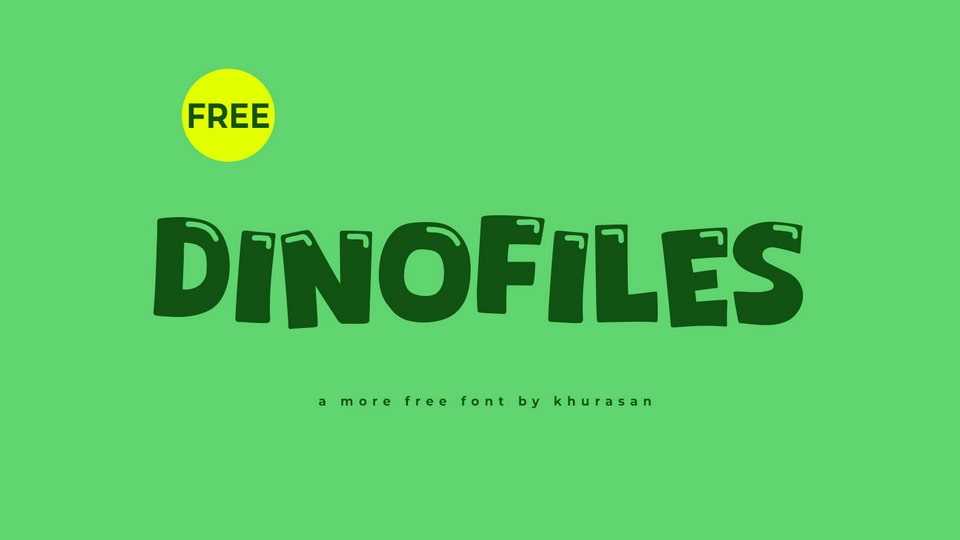
Download Dinofiles font, a bold, chunky, and bouncy cartoon typeface that bursts with playful energy and vibrant charm. Dinofiles font is crafted with thick, rounded strokes and exaggerated proportions, creating a dynamic and whimsical typographic experience.